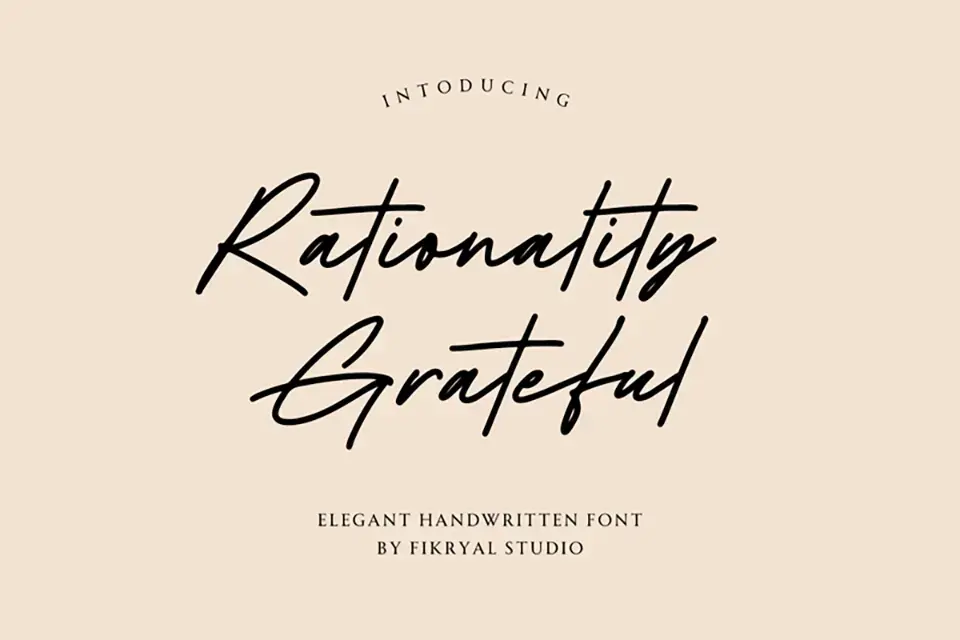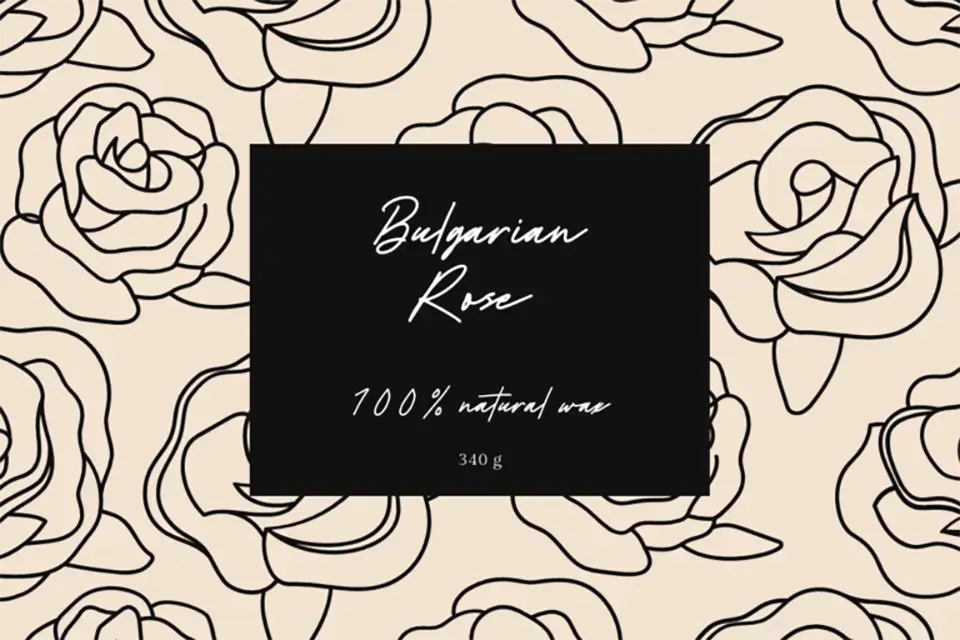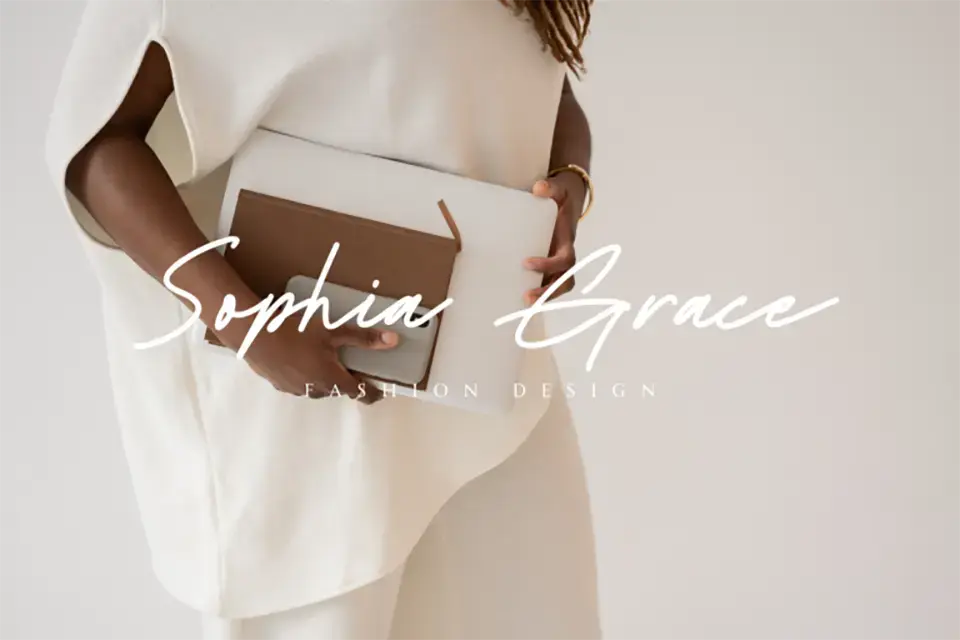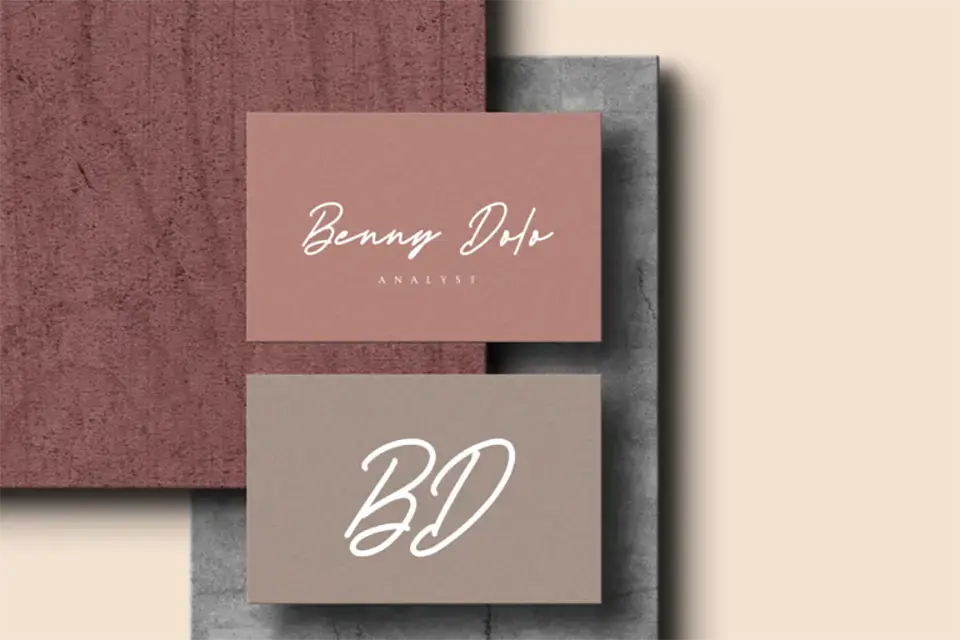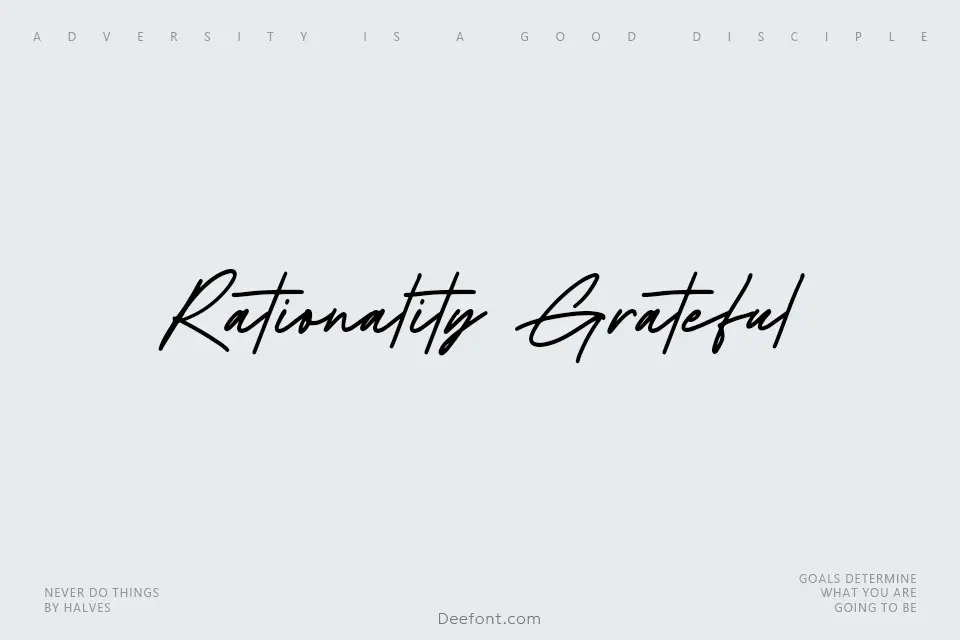
Rationality Grateful Font
Rationality Grateful is an elegant handwritten font that exudes sophistication and charm through delicate, flowing strokes and carefully crafted letterforms. This script typeface bridges the gap between casual handwriting and refined calligraphy, featuring graceful curves and swooping lines ideal for wedding invitations, greeting cards, branding materials, and social media graphics. The font’s femininity and elegance make it perfect for projects seeking a personal, emotional connection with the audience.